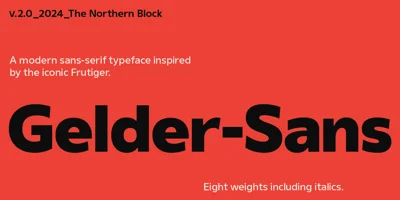
Gelder Sans Font
Gelder Sans Font is ideal for modern websites, corporate presentations, mobile app interfaces, tech company branding, minimalist posters, contemporary magazine layouts, clean business cards, professional reports, digital signage, and sleek product packaging designs.
What makes Gelder Sans Font exciting is its perfect balance between readability and contemporary style that elevates any design project. This versatile sans-serif typeface features clean geometric forms with subtle humanist touches, creating a sophisticated appearance that works seamlessly across all media platforms. The font's exceptional legibility at various sizes makes it a designer's dream for both headlines and body text.
Gelder Sans Font family includes multiple weights ranging from Light to Bold, with corresponding italic variants for each weight. The comprehensive character set supports extended Latin languages, making it suitable for international projects while maintaining consistent visual harmony throughout the entire family.
Professional designers consistently choose Gelder Sans Font for projects demanding modern elegance and crystal-clear communication. This outstanding typeface represents the evolution of contemporary typography, combining Swiss design principles with cutting-edge digital optimization. The carefully crafted letterforms ensure maximum impact whether used in corporate identities, editorial design, or digital interfaces, making it an indispensable tool for creating memorable brand experiences.